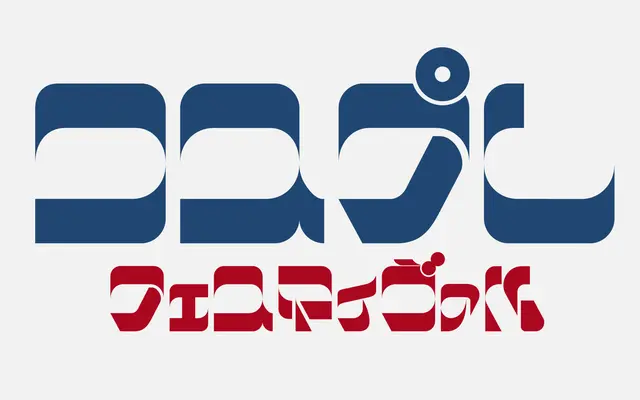
BD Relaunch
Type Different · Savwo (Cyclone Graphix) for Katakana · 2000
A single-weight display face from 2000, relaunched in 2024, pairing Latin Roman letterforms with Japanese Katakana glyphs contributed by Savwo of Cyclone Graphix in Tokyo.
Originally created in 2000 and formally relaunched in 2024, this single-weight face covers Basic Latin, West European accented characters and a full Katakana block. The Katakana glyphs were drawn by Savwo from Cyclone Graphix in Tokyo, giving the Latin-Katakana combination a cross-cultural graphic energy typical of early 2000s design. It suits display and headline use where a Y2K-inflected, Japan-adjacent aesthetic is wanted.
A stylised display face combining Latin Roman letterforms with Japanese Katakana glyphs, occupying a niche between Latin display and mixed-script novelty type.